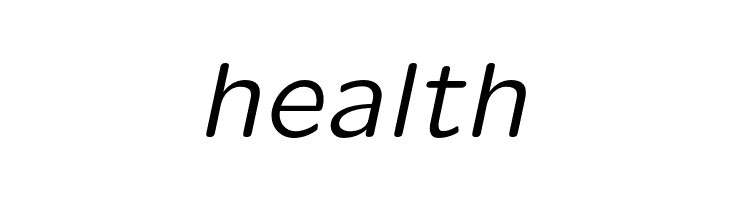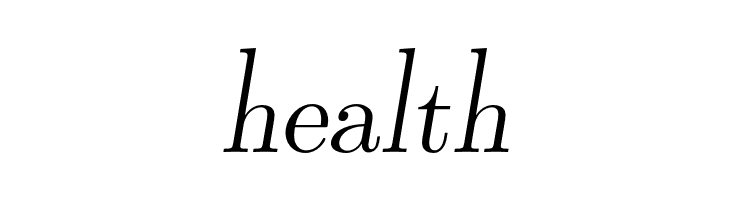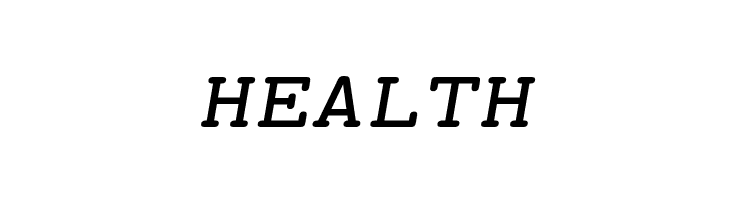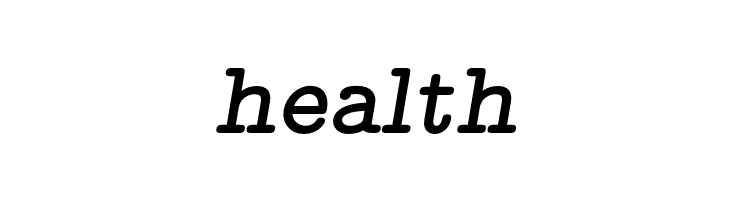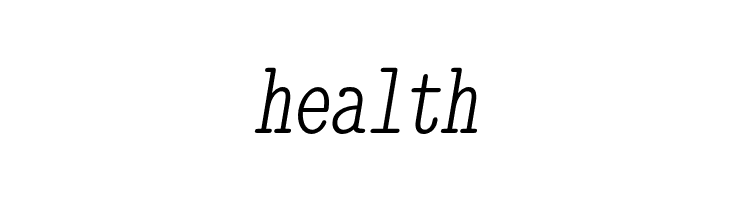
A sleek, modern oblique font with thin strokes and dynamic slant.
A modern, oblique sans-serif font with clean lines and a dynamic appearance.
A modern sans-serif font with an oblique slant, offering a sleek and dynamic appearance.
A classic oblique serif font with elegant proportions and moderate contrast.
A modern, oblique sans-serif font with clean lines and a sleek appearance.
A modern sans-serif font with an oblique style, offering clarity and dynamic appeal.
A modern, oblique sans-serif font with a clean and professional look.
A monospaced, oblique font with medium contrast and uniform spacing.
A bold, oblique monospaced font with a modern, dynamic style.
A light, condensed, oblique monospaced font ideal for technical use.